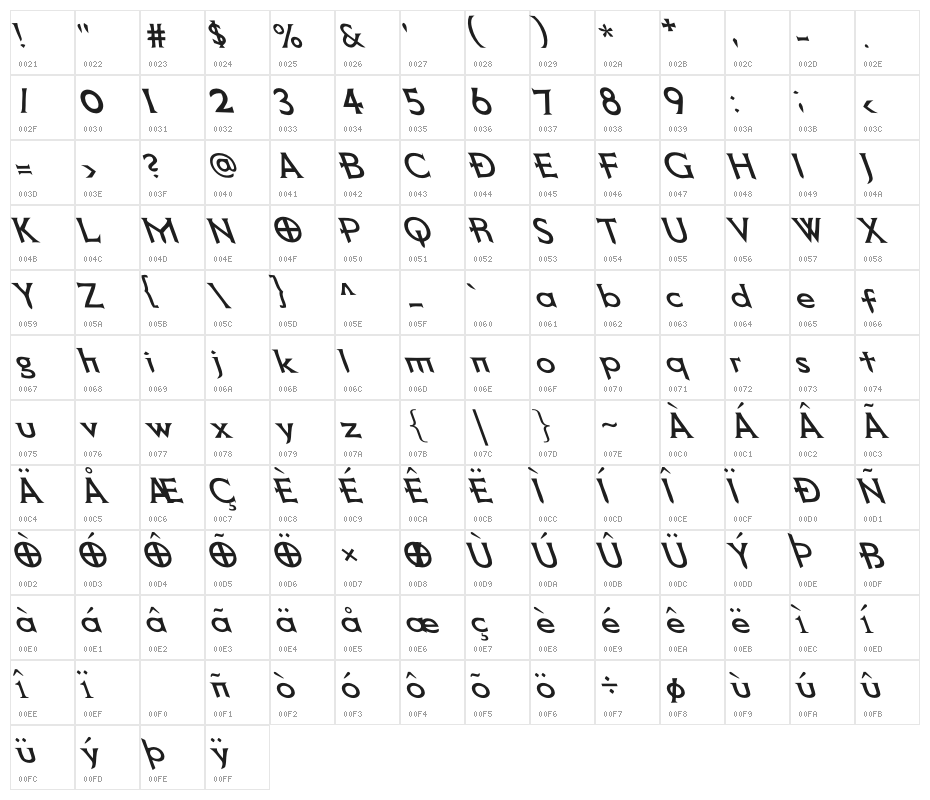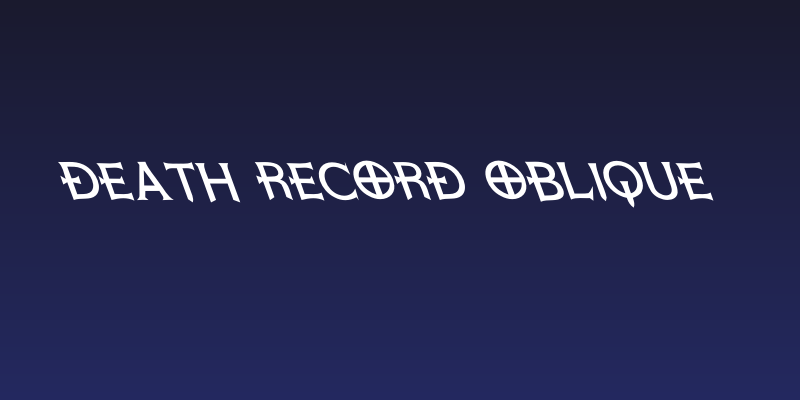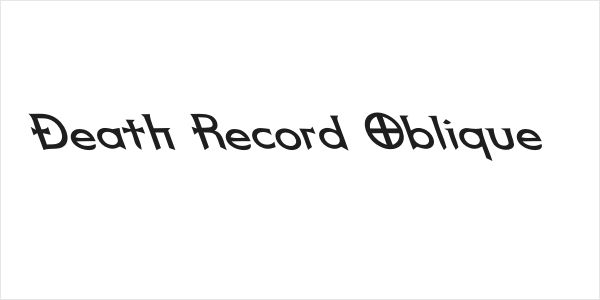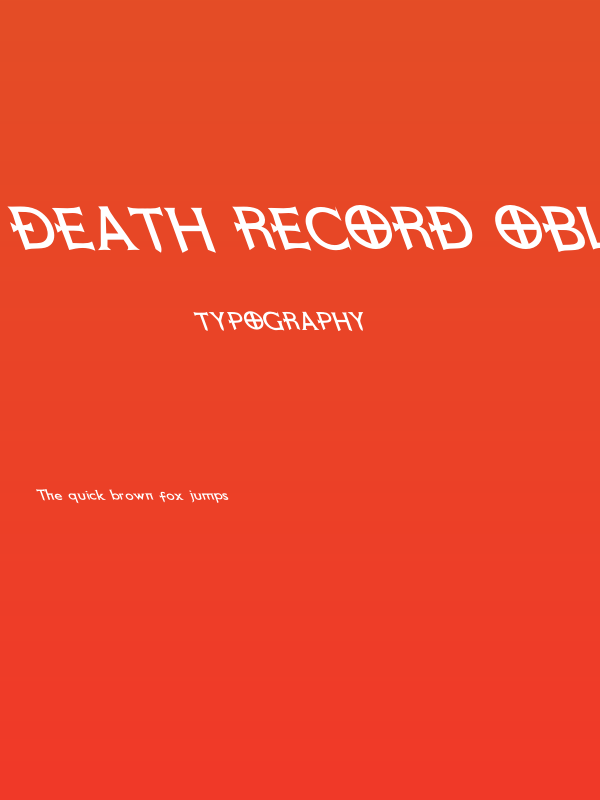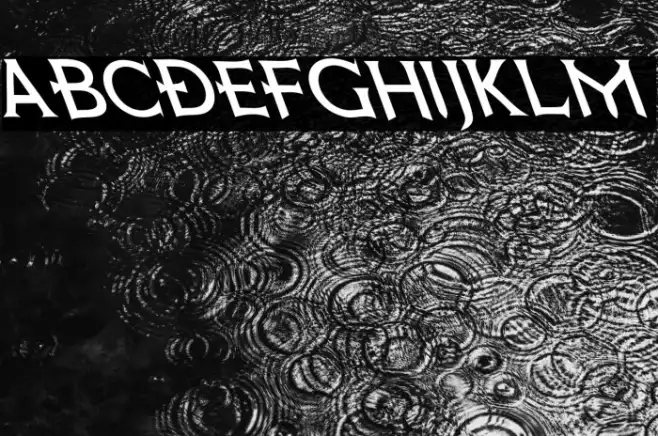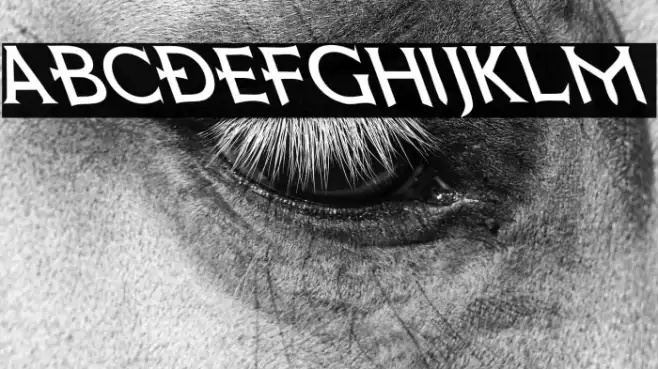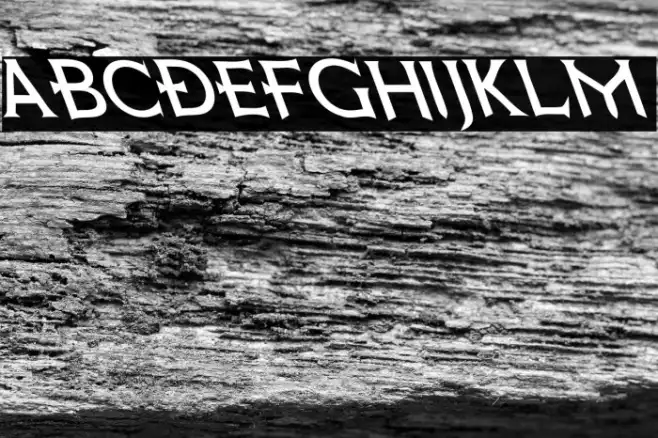
Death Record Oblique Font
Death Record Oblique Description
This font features a bold and edgy design with sharp, angular lines and a slightly oblique orientation. The uppercase letters are distinct with unique elements, such as the slashed 'O' and the angular 'N'. Lowercase letters maintain the sharp aesthetic, providing a cohesive look throughout. Numbers and special characters follow the same style, ensuring consistency. The font's dramatic appearance makes it stand out, suitable for projects that require a strong visual impact.
| Overall Style | Modern, Edgy |
| Proposed Projects | Ideal for album covers, posters, video game titles, or any project needing a bold, edgy aesthetic. |